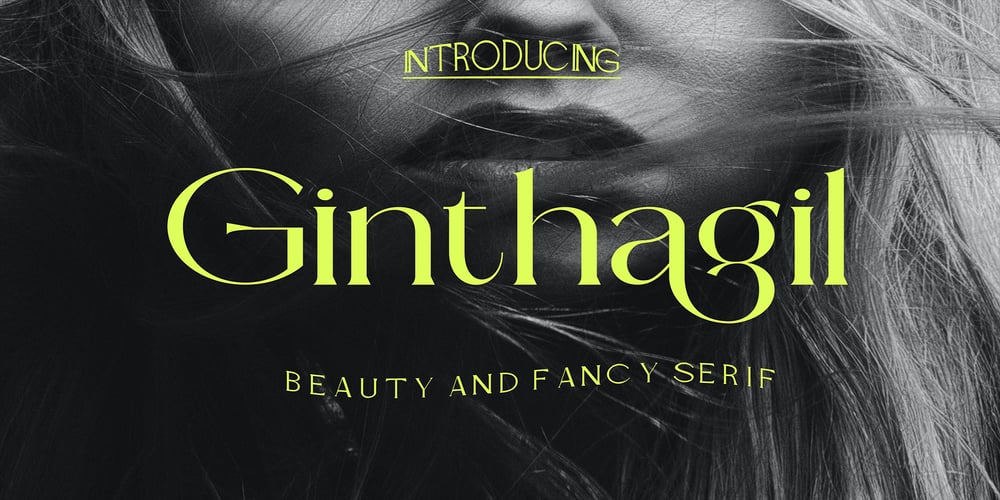
Ginthagil Font Family was designed by Canden Meutuah and published by Canden Meutuah. Ginthagil contains 1 styles and family package options. This font is Perfect for branding projects, logo design, clothing branding, packaging, magazine titles, advertisements, t-shirts, postcards, editorials, magazine headlines, product packaging, and displaying masculine and feminine qualities.this is equipped with full uppercase, lowercase, numbers and punctuation + Multi-language support